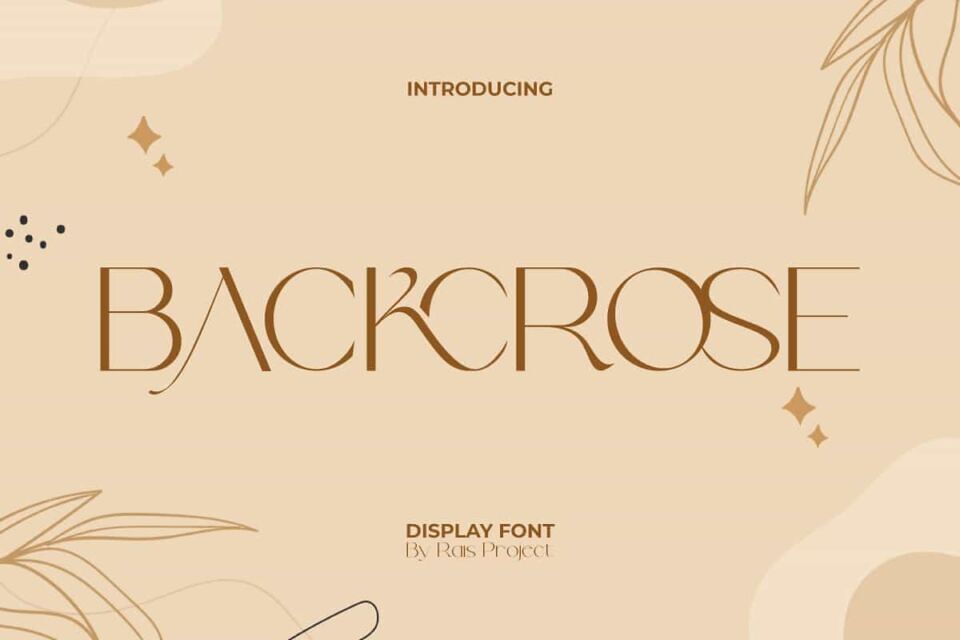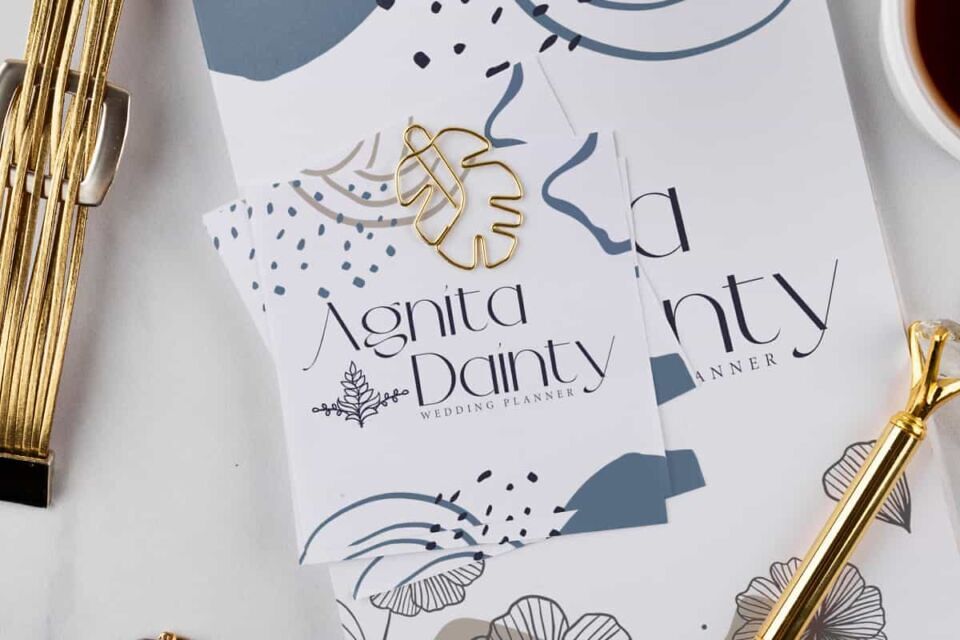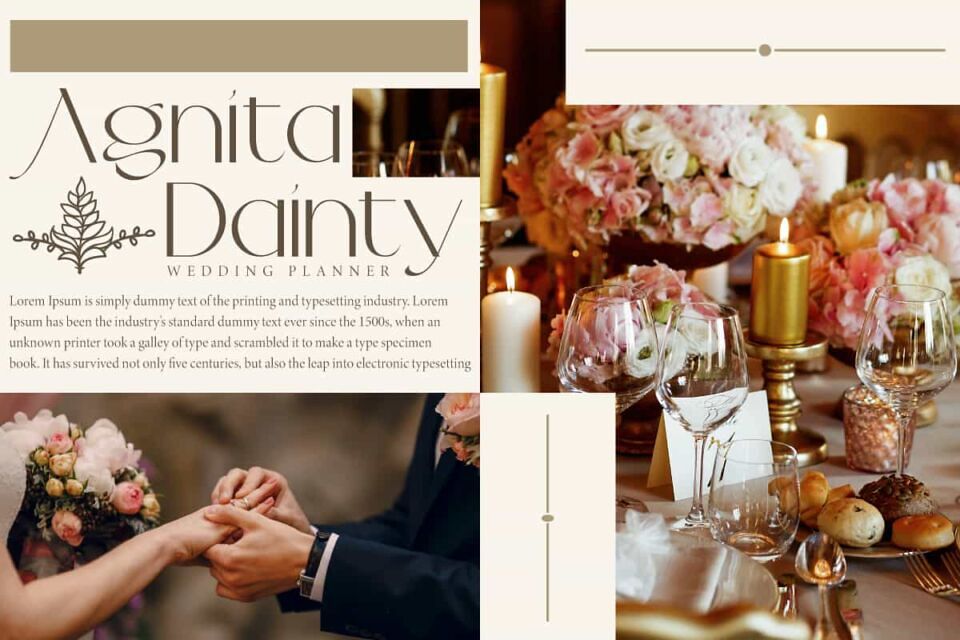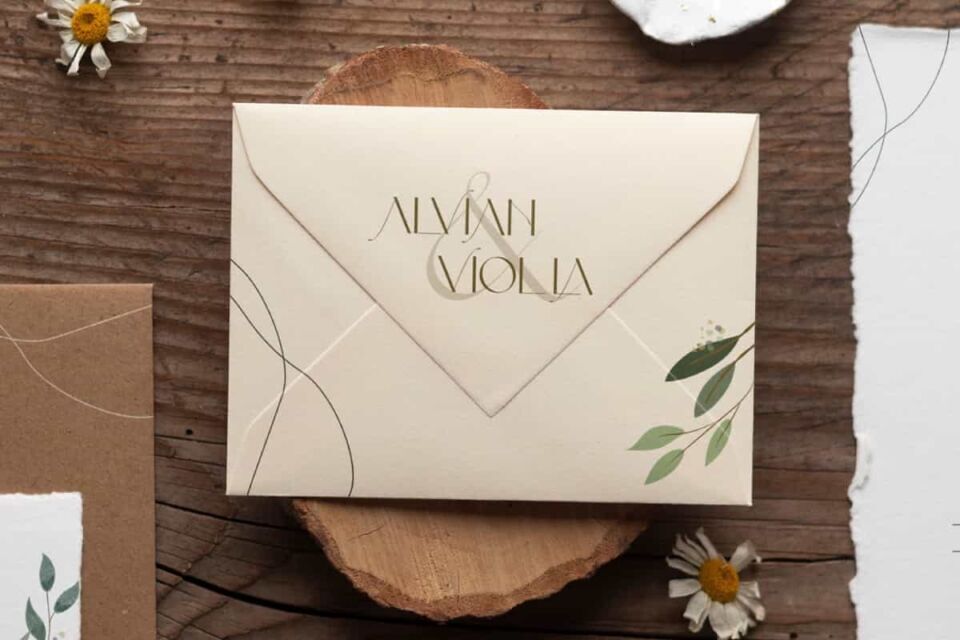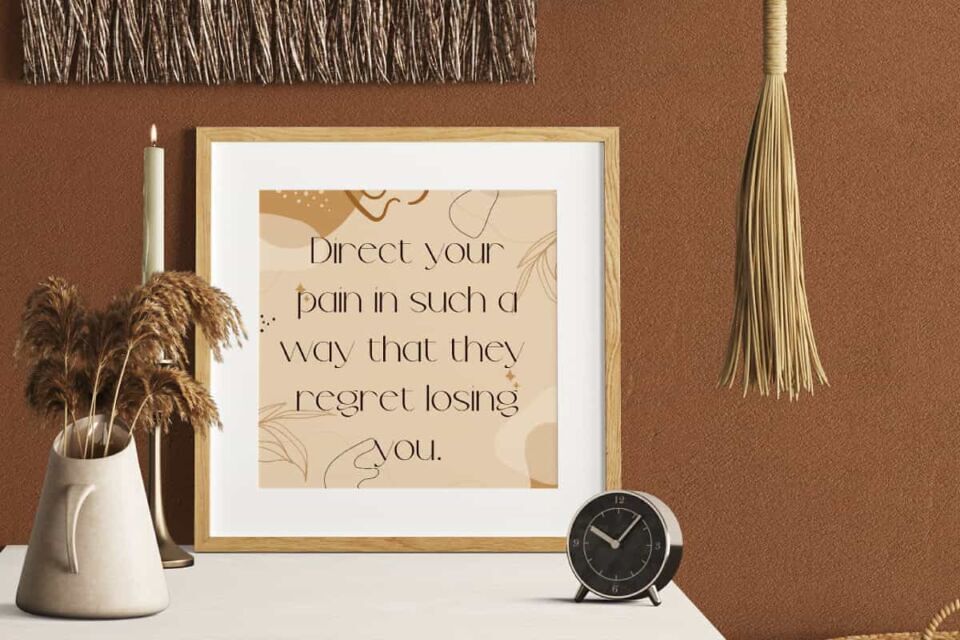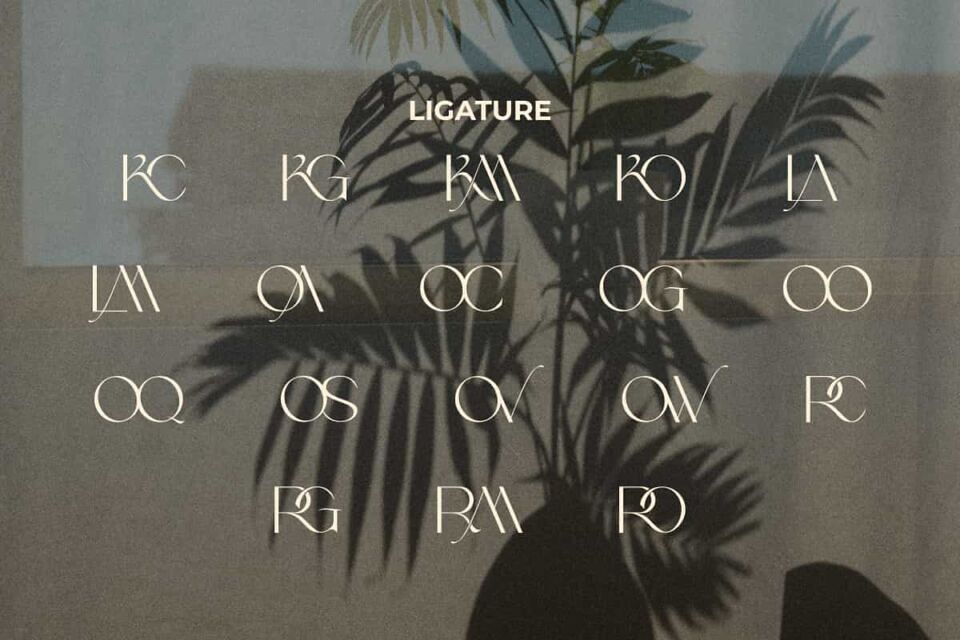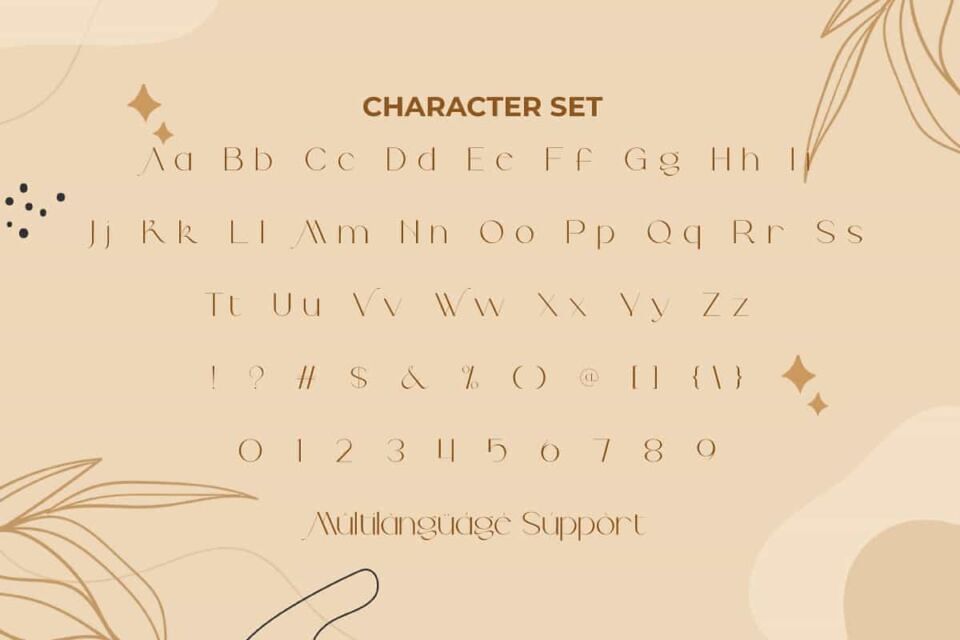
Backcrose Font
Backcrose Font is a flawless modern sans serif display font, by RaisProject. This font has thin lines with soft strokes that make it look luxurious. It will be good for any designs, such as brand image, cover, custom design, greeting card, invitation, label, poster, product packaging, quotes, signage, stationery, web, and more!
Backcrose Font includes a full set of Uppercase and Lowercase Letters, Numerals, Punctuation, Symbol, and Ligature characters. This modern font will be suitable for various industries, such as accessories, advertisement, event or wedding organizer, fashion, florist, homeware, perfume, photography, printing, publishing, real estate, etc.